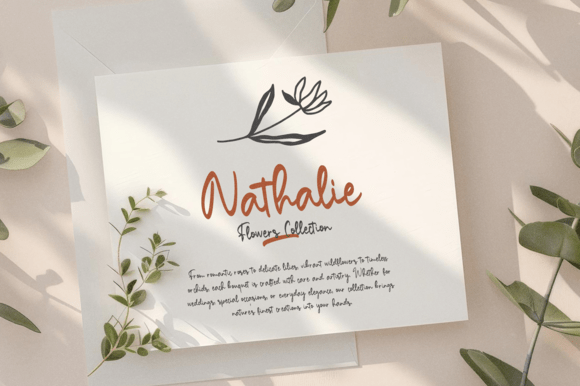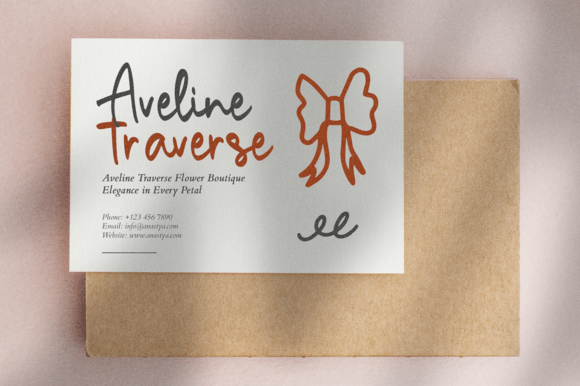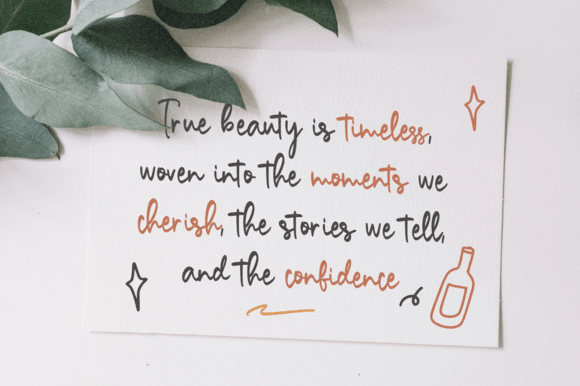
Bound Fish Font
At Bound Fish, we believe that fonts are the best way to convey a message with style and personality. We bring you a collection of beautiful, playful, and whimsical fonts—designed specifically for those who want a touch of handwritten, whimsical, and captivating script.